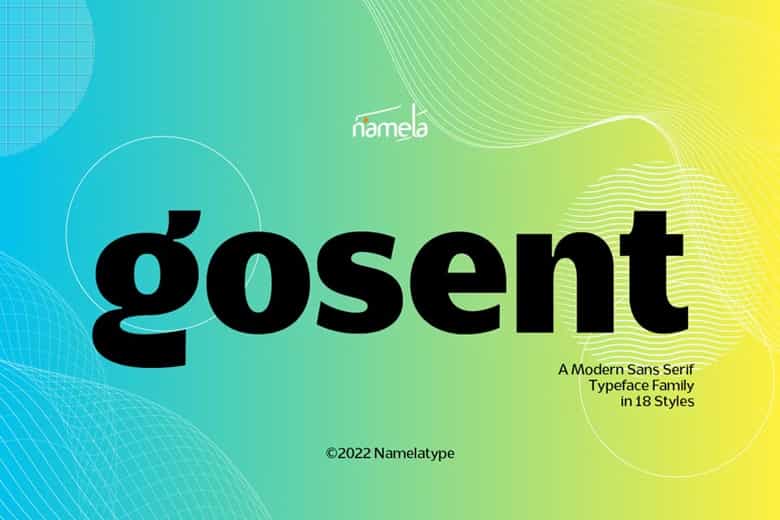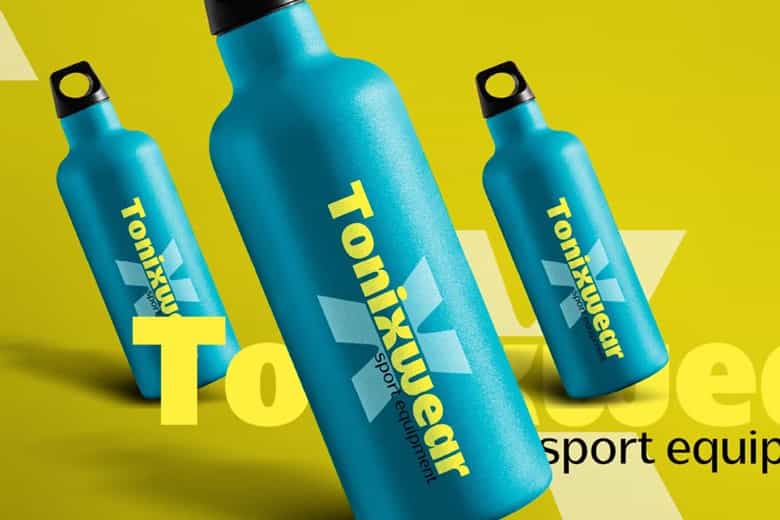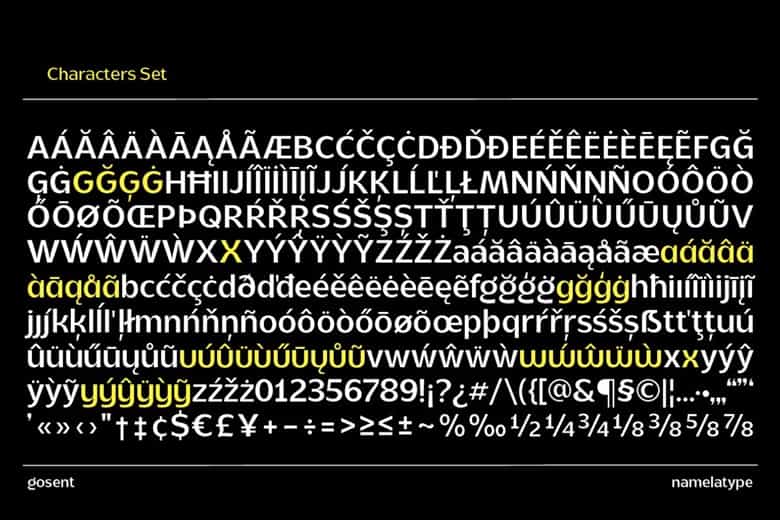
The Gosent typeface is a sans serif design that has been designed and constructed with immense care to draw attention. Due to its high x-height it performs well at small sizes, being highly legible and readable. This font is perfect in terms of contrast which is not very high and makes it look classy but it is easily readable. What characterizes the distinguishability of Gosent Font are those peculiar stylistic features such as the unconventional ink trap, which adds today-like touch into each form of the characters.